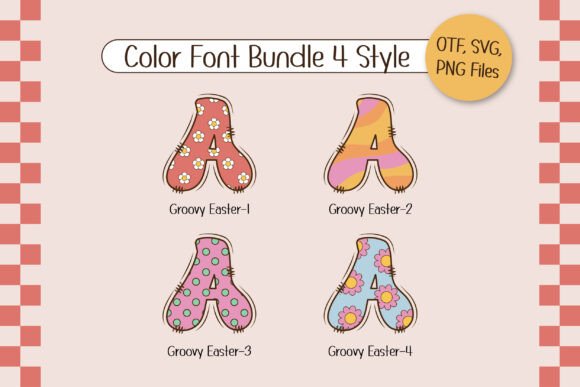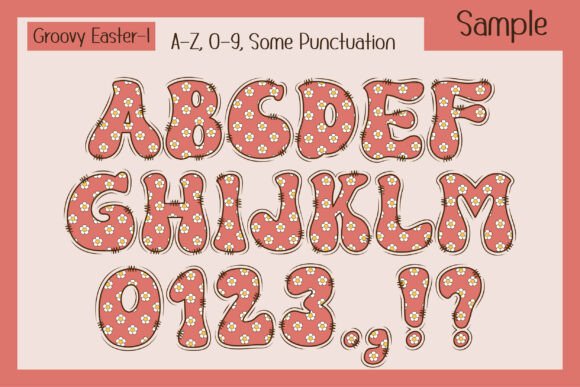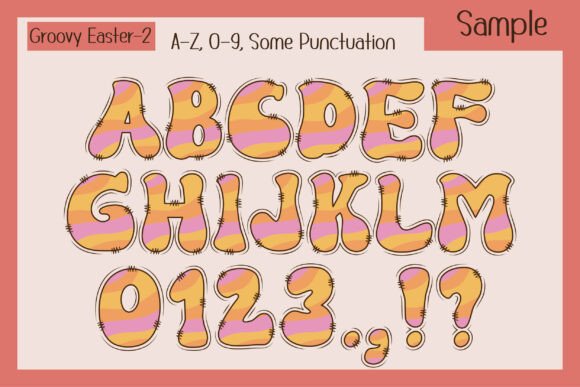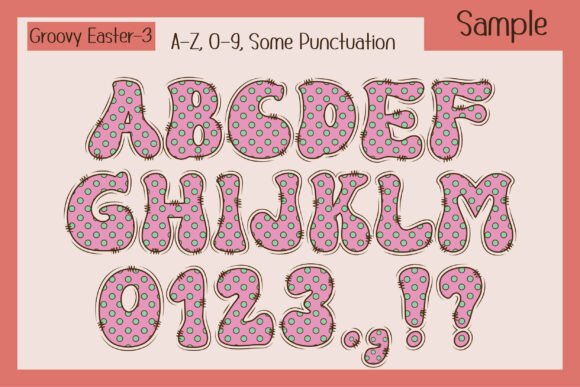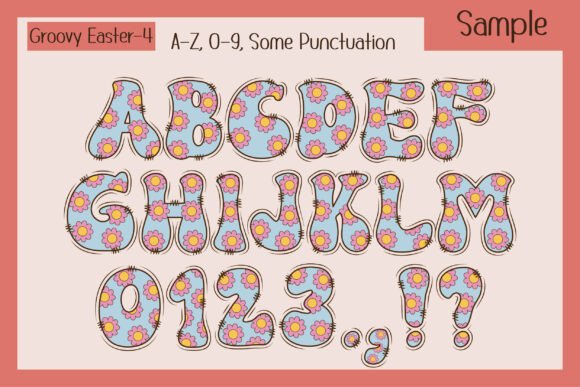
Hop into Easter with a Groovy Twist: A Deep Dive into the Groovy Easter Font
I’ll never forget the time I was working on an Easter-themed project for a client, and I just couldn’t find the right font to capture the vibe I was going for. I wanted something that screamed “Easter fun” but also had a bit of a retro twist. That’s when I stumbled upon the Groovy Easter Font, and let me tell you, it was love at first sight! 💕
This delightful fusion of groovy style and Easter festivity has been a game-changer for my designs, and I’m excited to share my experience with you. The Groovy Easter Font features a nostalgic retro color scheme and charming Easter egg painted patterns, making it the perfect addition to any springtime celebration.
What’s in the Groovy Easter Font?
The Groovy Easter Font is a 4Color Font that infuses your seasonal projects with old-school flair. It comes with 20 Easter Doodle Cliparts, which are perfect for adding extra fun to any creation. Whether you’re working on Easter Day posters, quotes, T-shirts, custom names, DIY crafts, or more, this font is sure to elevate your designs.
My Honest Review
- ✅ The unique blend of groovy style and Easter festivity
- ✅ The nostalgic retro color scheme that adds a touch of vintage charm
- ✅ The charming Easter egg painted patterns that are perfect for Easter-themed designs
- ✅ The included 20 Easter Doodle Cliparts that add extra fun to any creation
While the Groovy Easter Font is an amazing addition to any design project, there are a few things to keep in mind:
- 🤔 The font may not be suitable for very formal or traditional designs, as it has a distinctly playful and retro vibe.
- 🤔 Some users may find the font a bit too “busy” or overwhelming, especially when used in large blocks of text.
The Designer Inspiration Behind Groovy Easter
The Groovy Easter Font was inspired by the fun and playful designs of the 1960s and 1970s. The designer wanted to capture the essence of Easter and infuse it with a retro twist, creating a font that’s perfect for springtime celebrations.
Q: What is the Groovy Easter Font?
A: The Groovy Easter Font is a 4Color Font that combines groovy style with Easter festivity, featuring a nostalgic retro color scheme and charming Easter egg painted patterns.